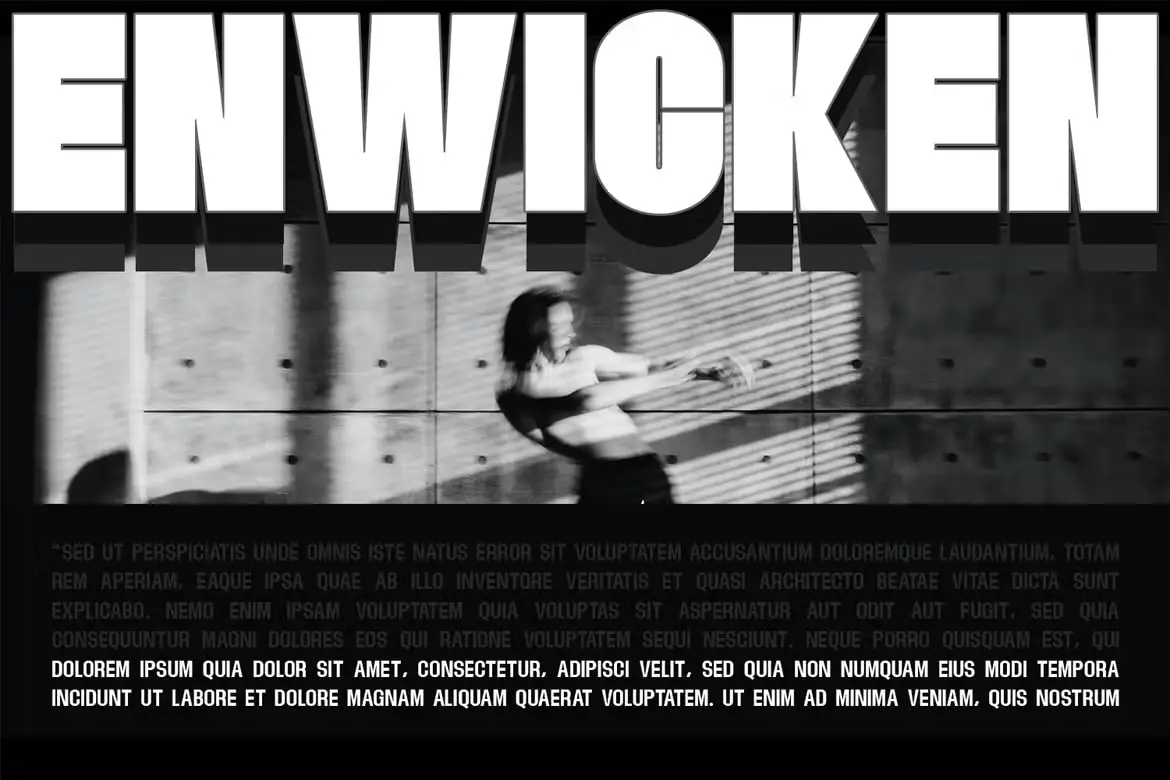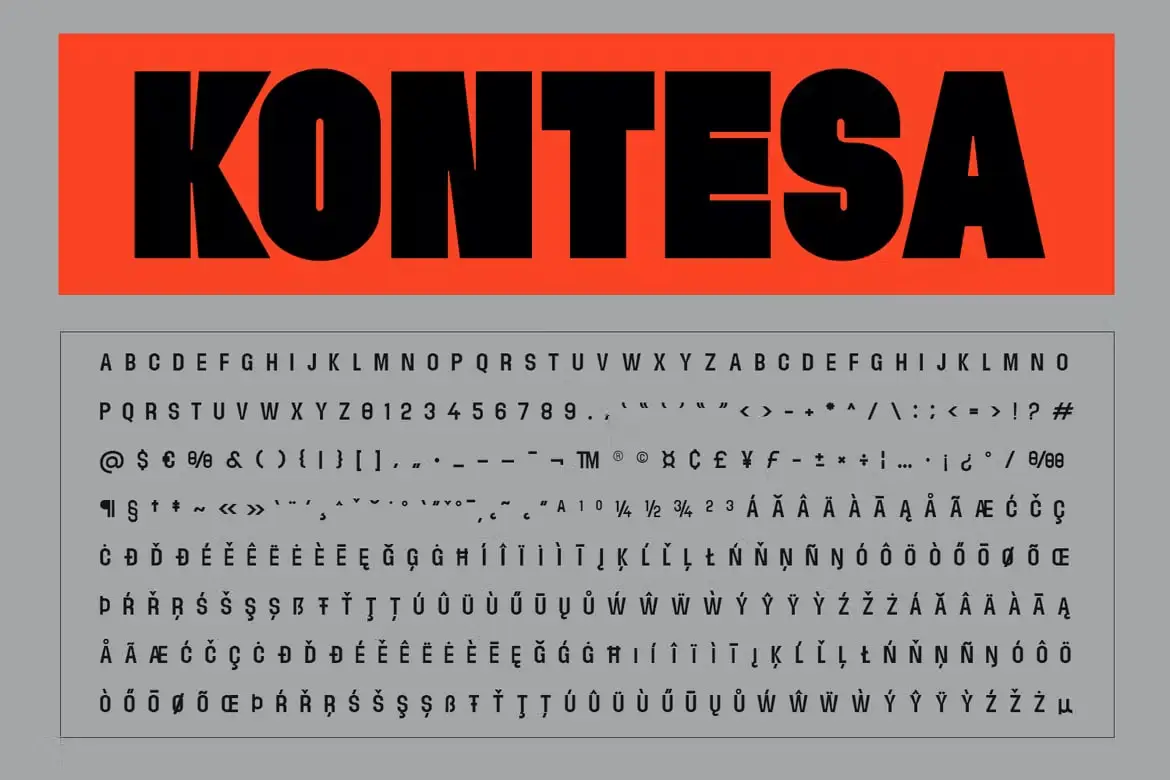
Kontesa Display Typeface
The Kontesa Display Typeface is a striking and elegant font designed for various creative projects. With its unique character shapes and stylish design, this typeface is perfect for making a statement in branding, logos, and promotional materials.
Kontesa features a range of weights, allowing you to choose the perfect style for your design needs. Available formats include OTF and TTF, ensuring compatibility across various platforms.
• Ideal for headlines and titles in print and digital media.
• Use in branding projects to create a memorable visual identity.
• Perfect for web design to enhance user interface elements.